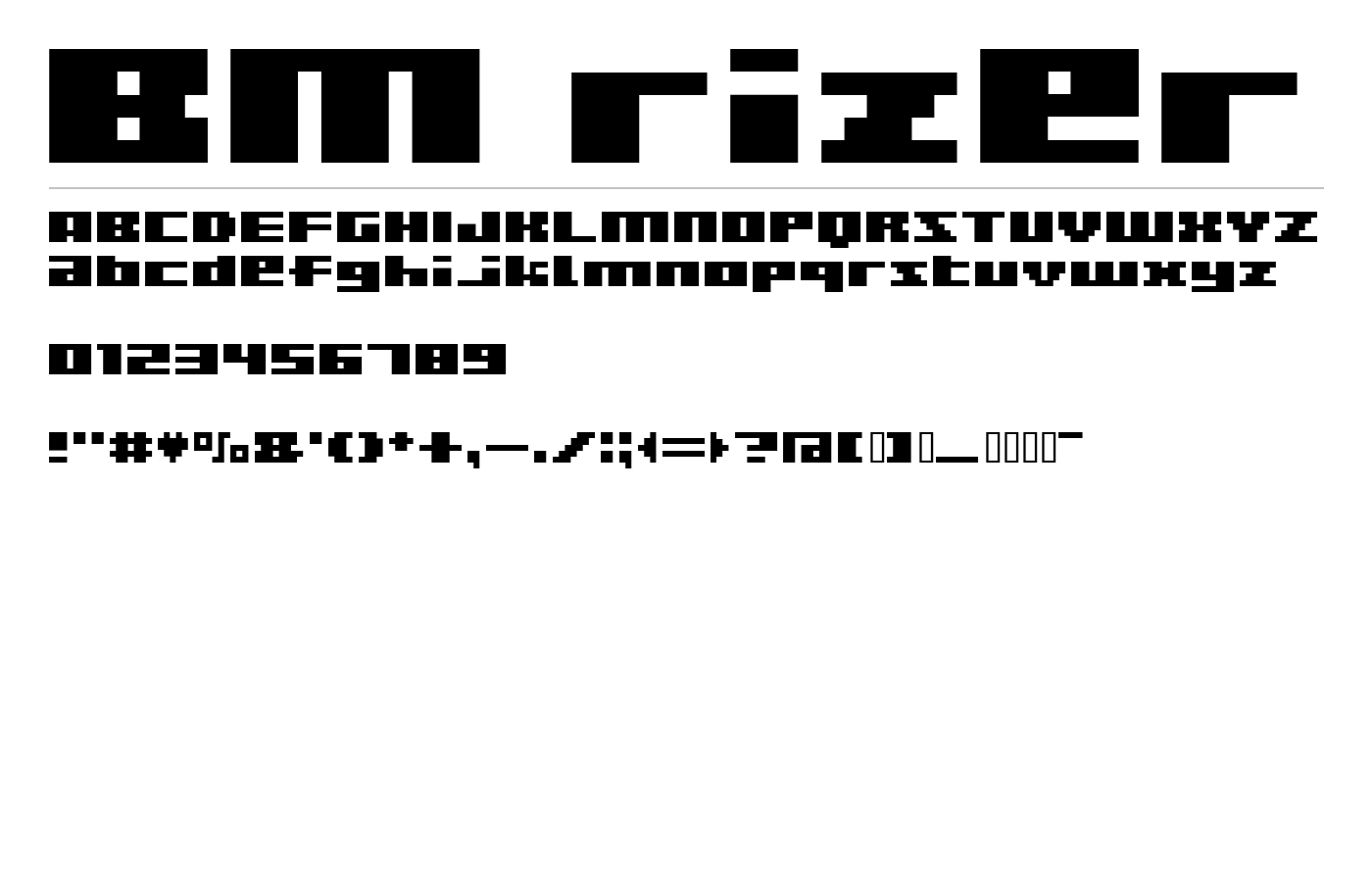
BM rizer is a bold, geometric sans serif font with a strong blocky and pixelated style that gives it a retro digital or arcade game feel. Its uniform stroke weight, square shapes, and tight spacing create a distinctive, impactful look ideal for headlines, logos, or designs seeking a tech-inspired or vintage video game aesthetic. This font works best where a bold, modern, and playful vibe is needed to grab attention.
BM rizer Font